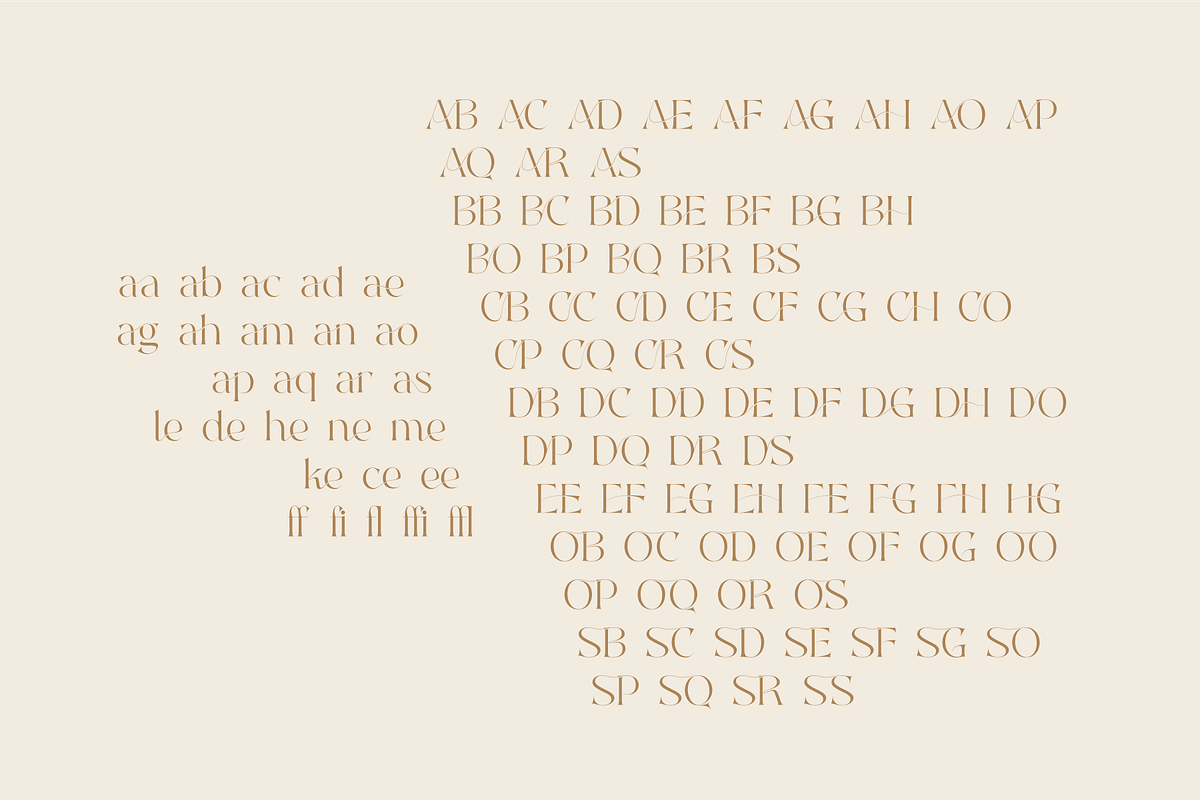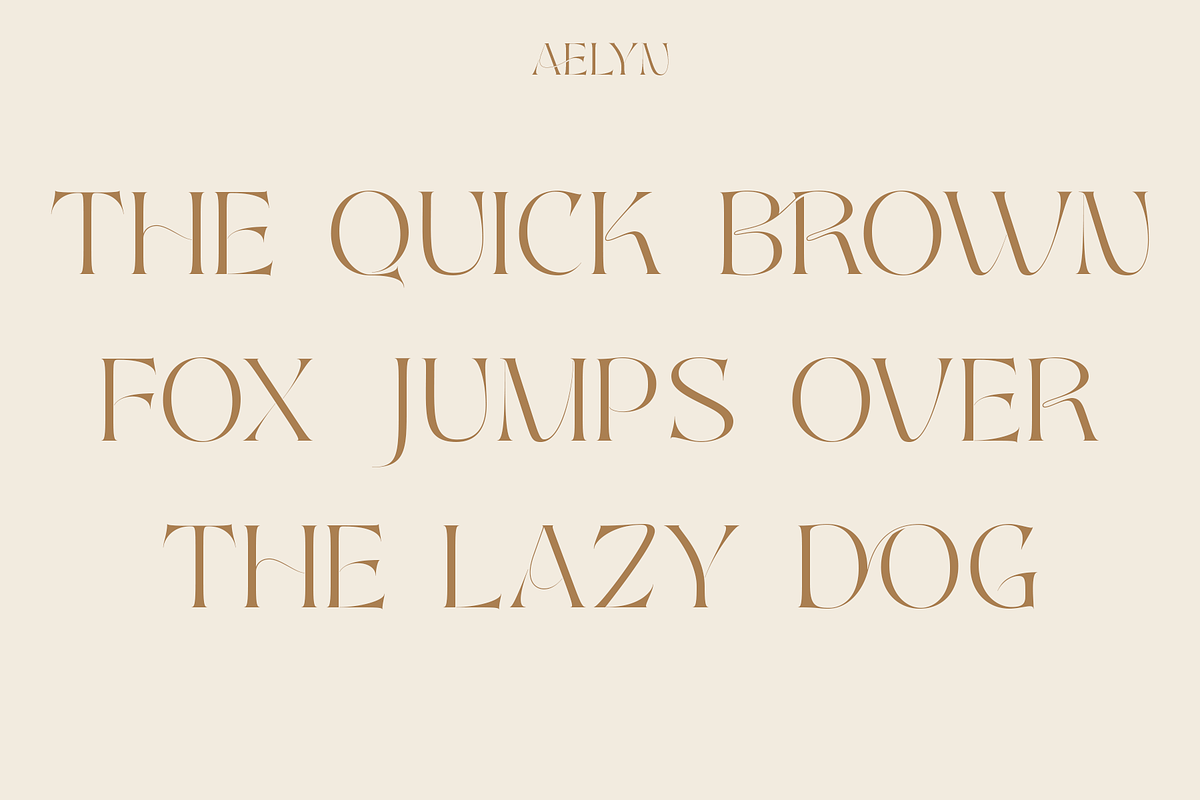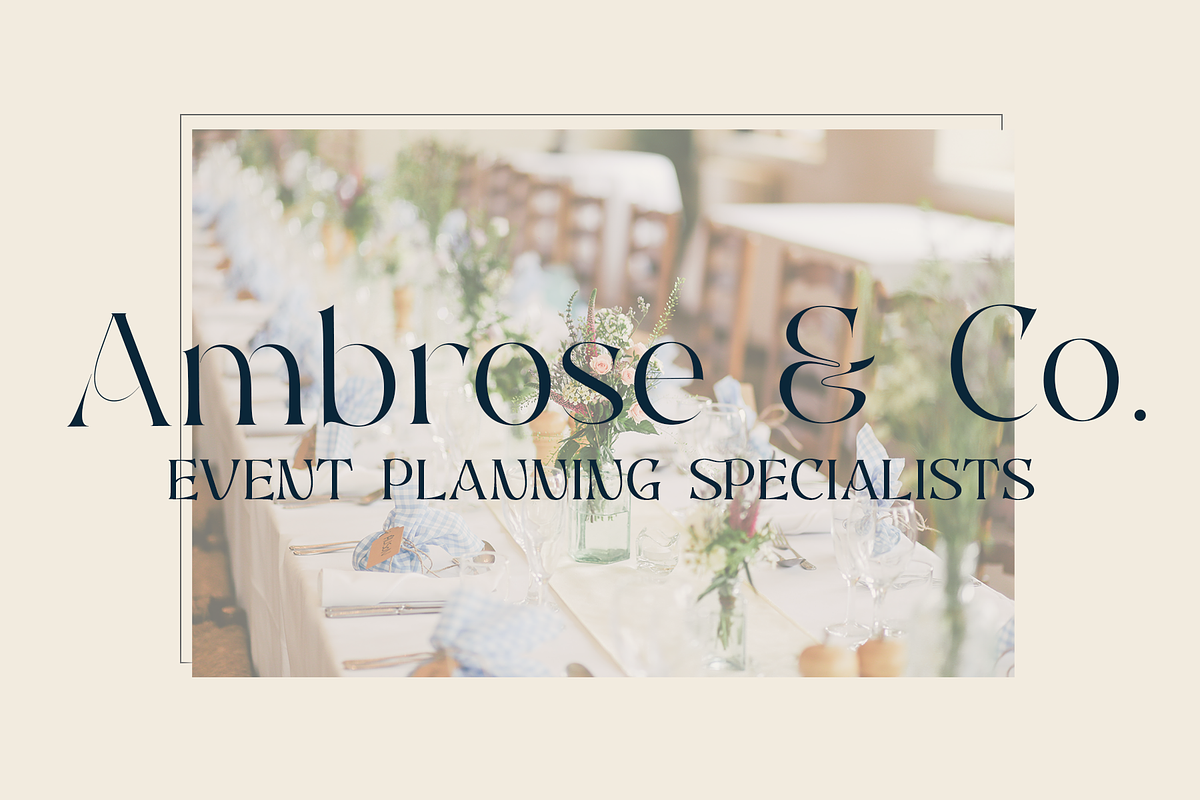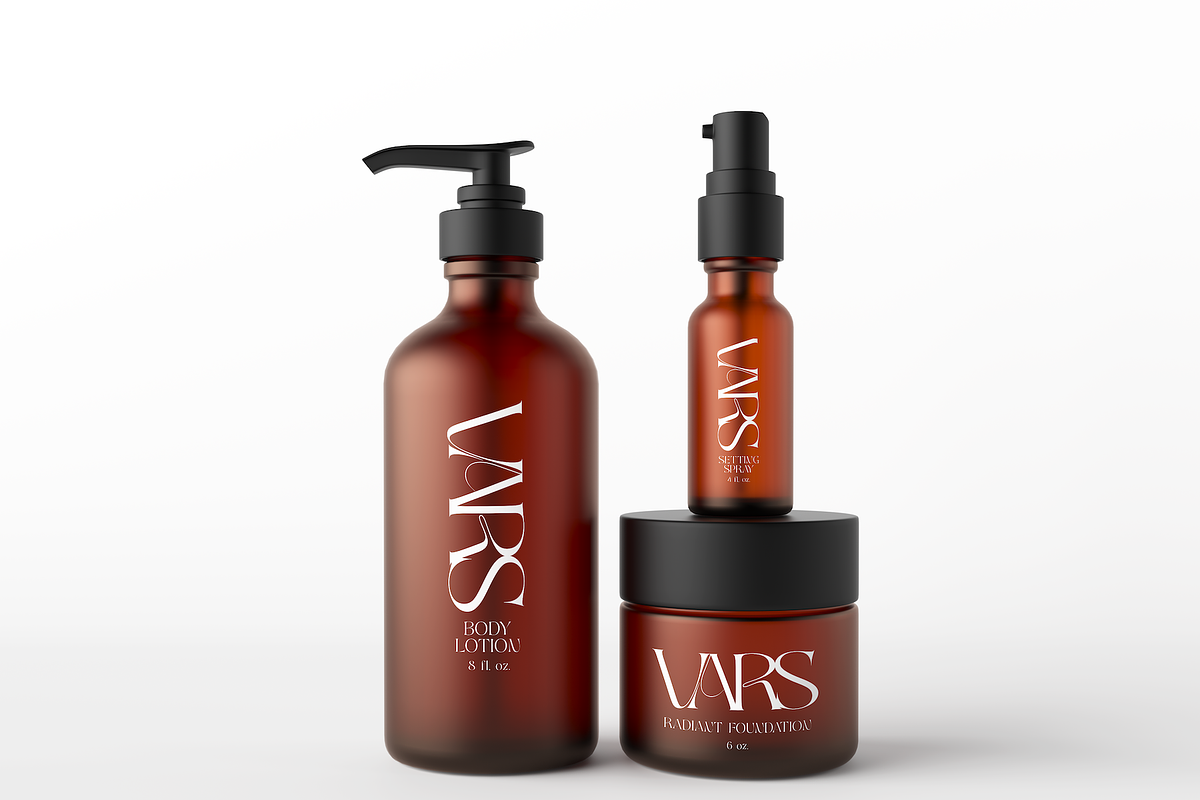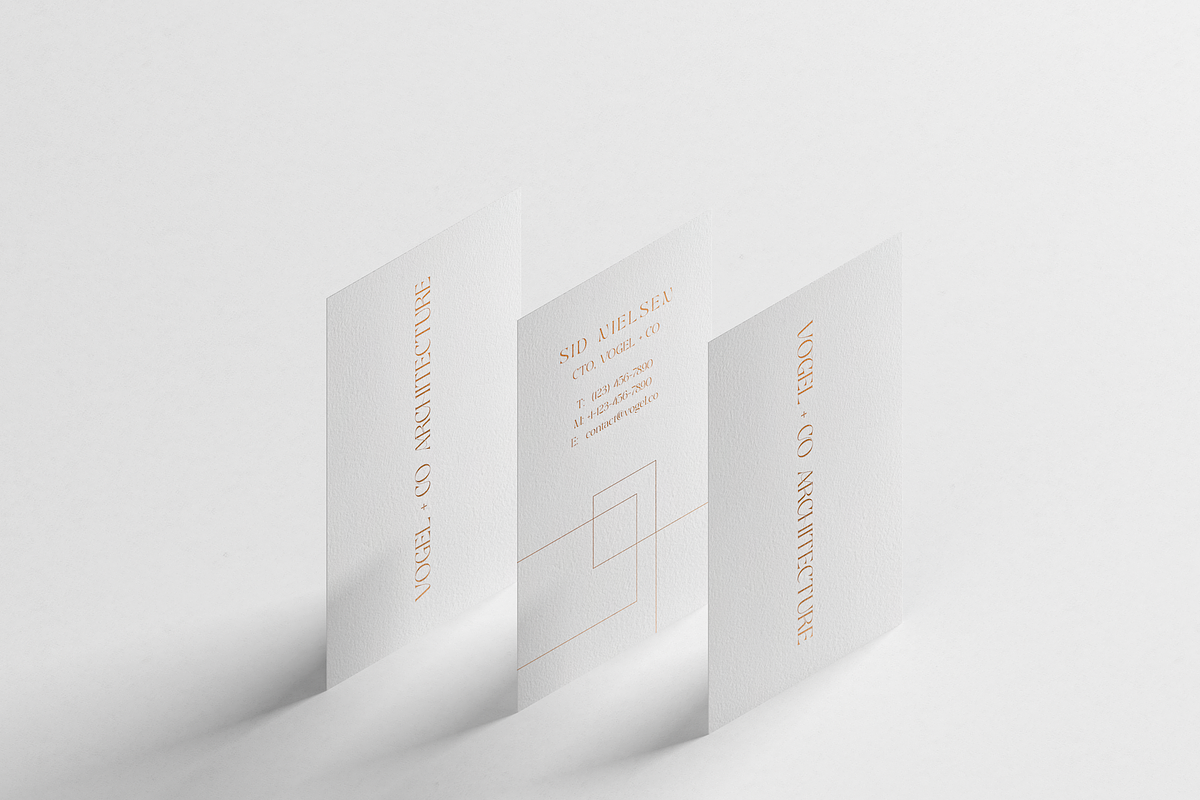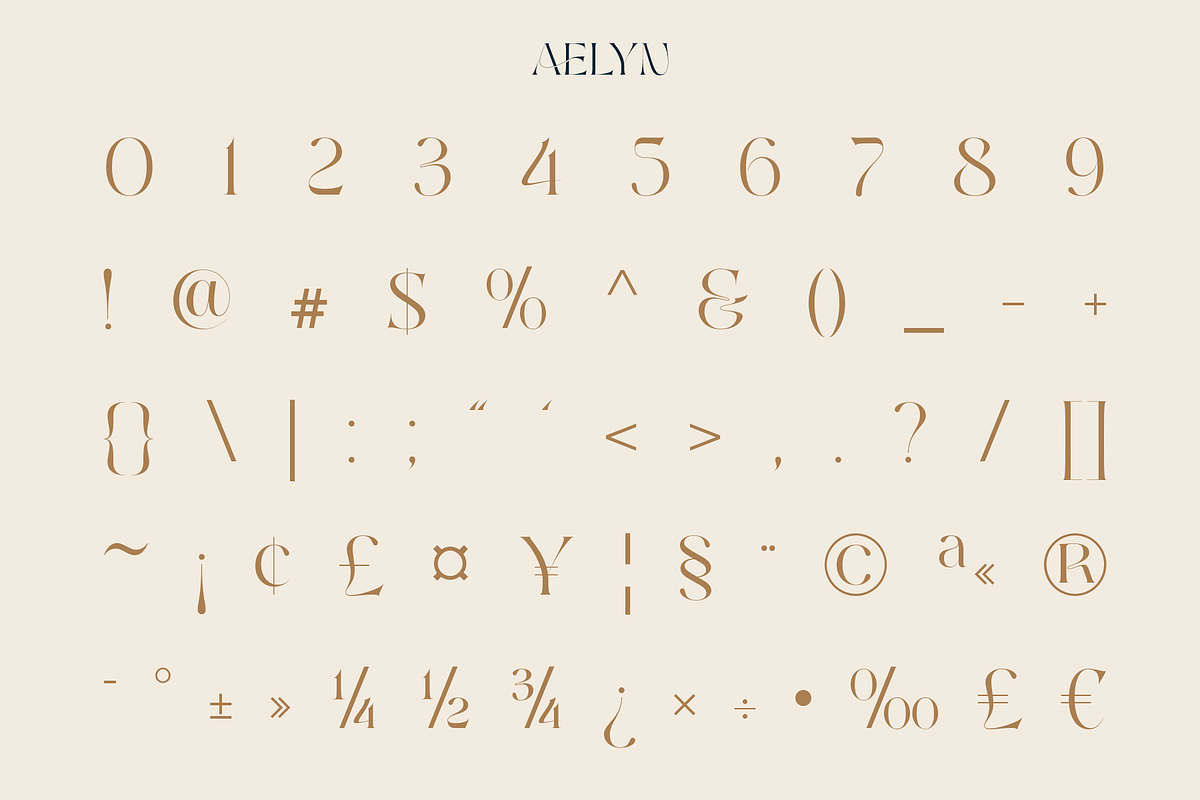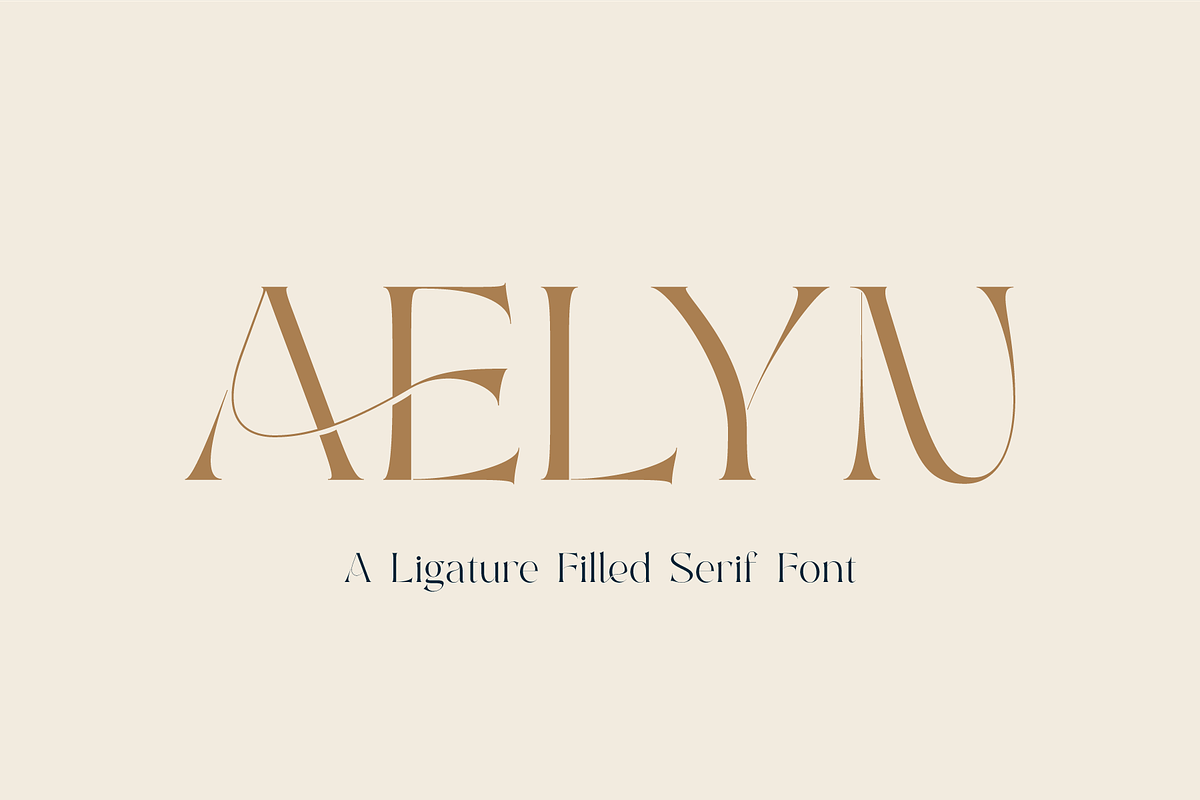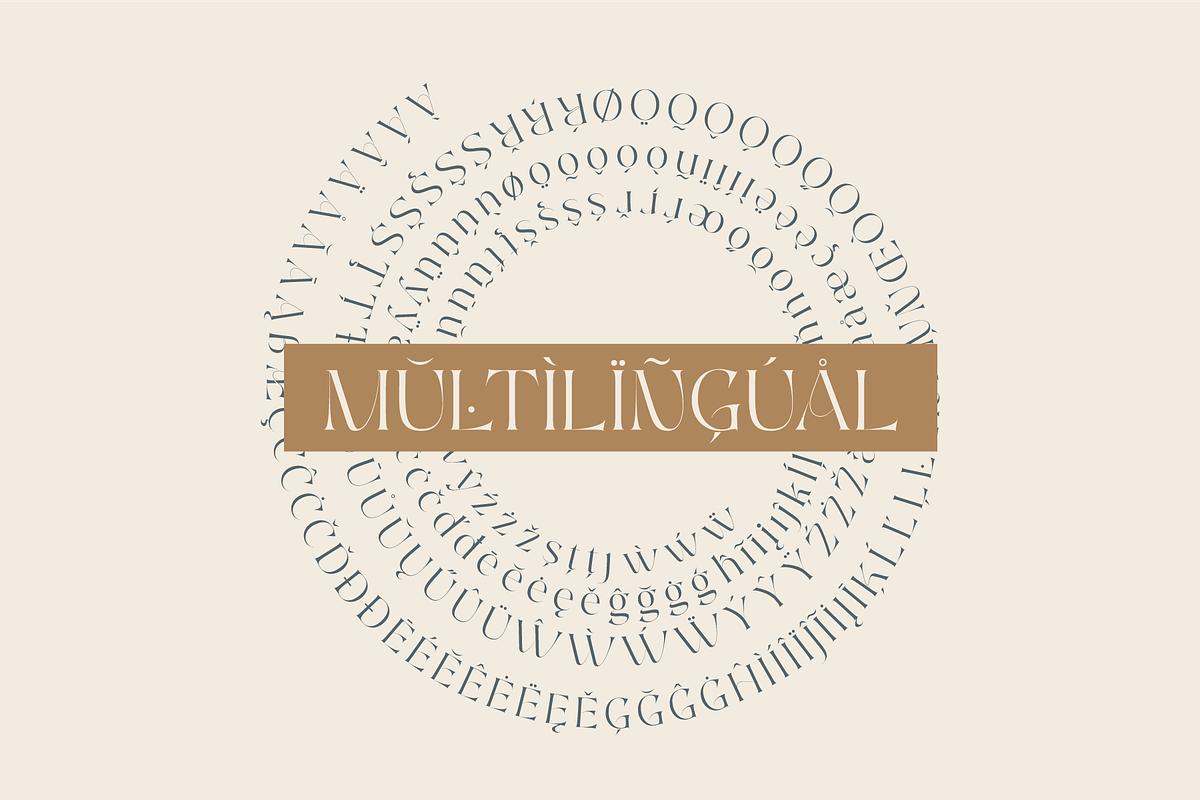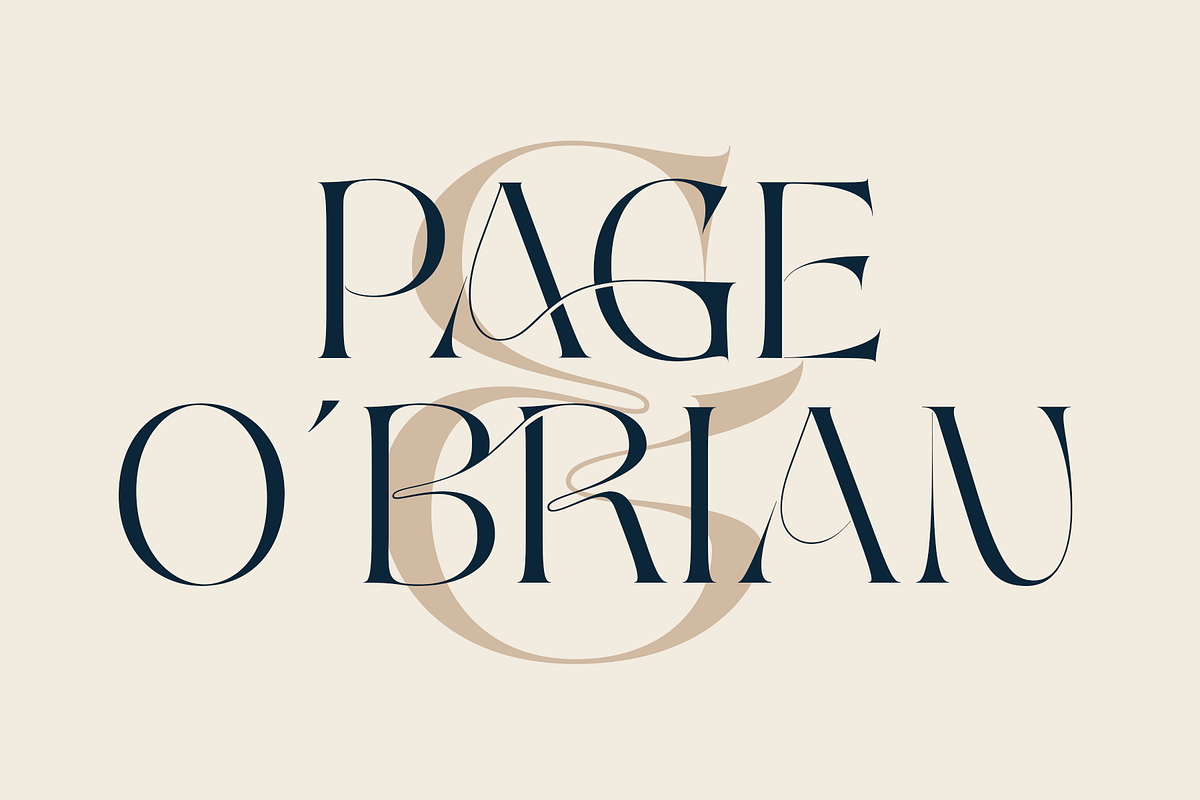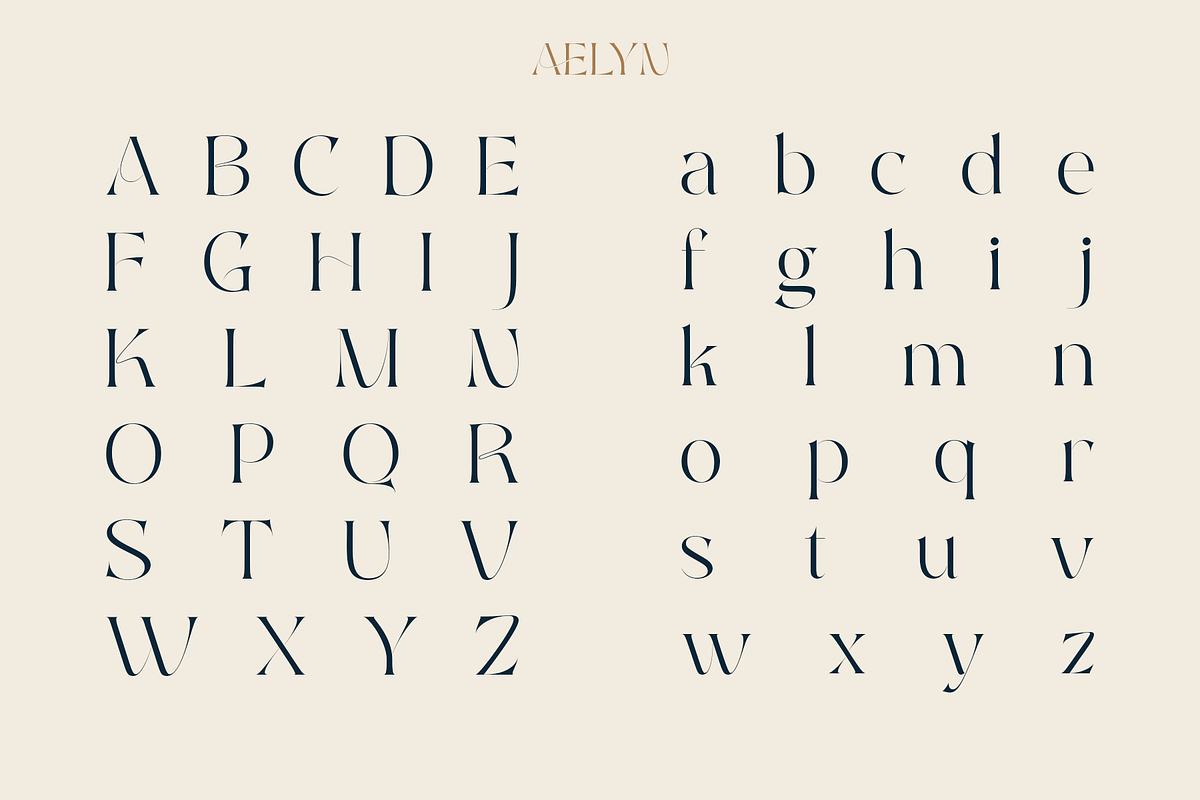
Aelyn - Ligature Serif Font
Aelyn is a ligature filled serif font with luxurious stylings.
This font features a huge selection of ligatures in both upper and lowercase characters. Aelyn is perfect for luxury brands, elegant web designs, premium stationery & much more.